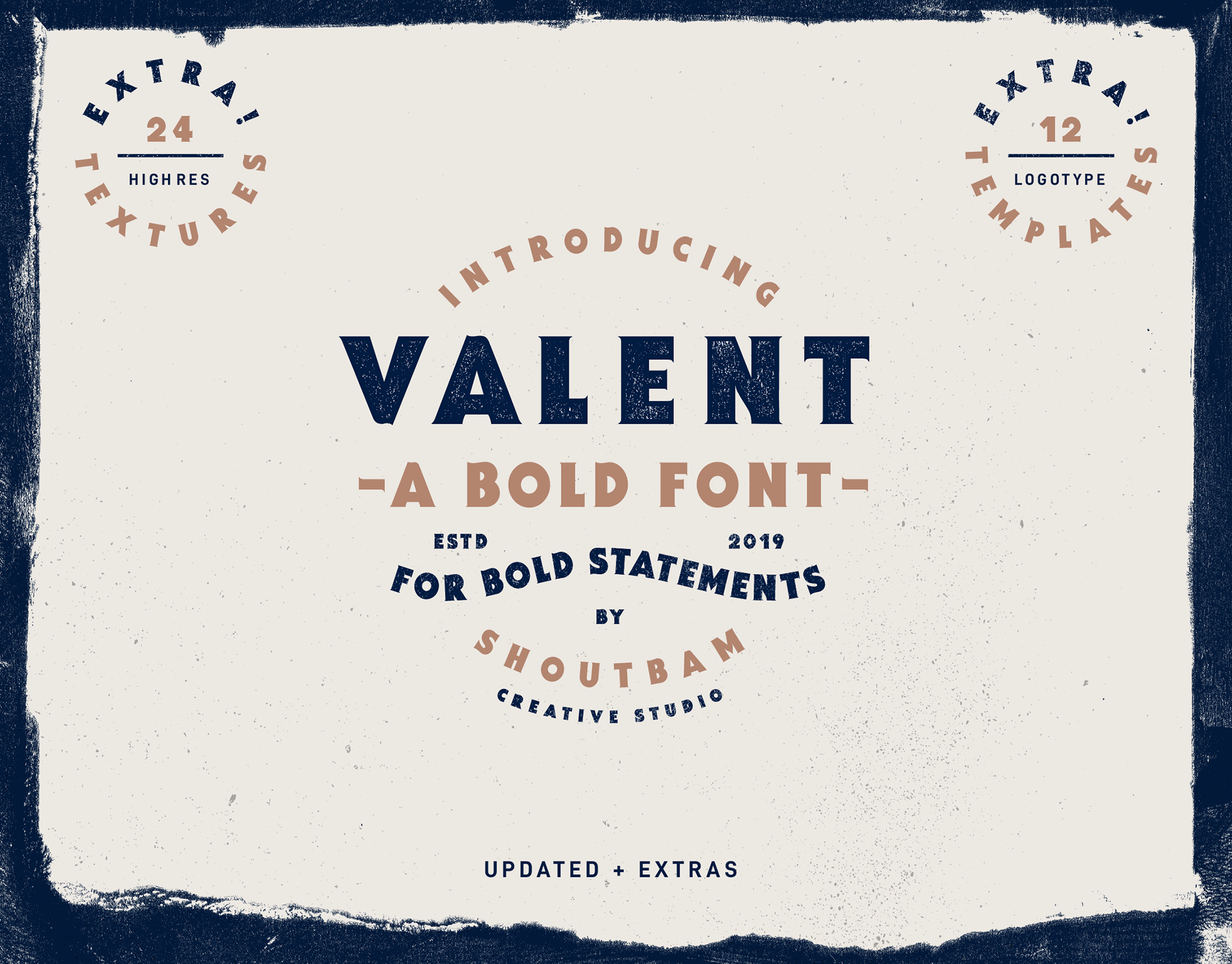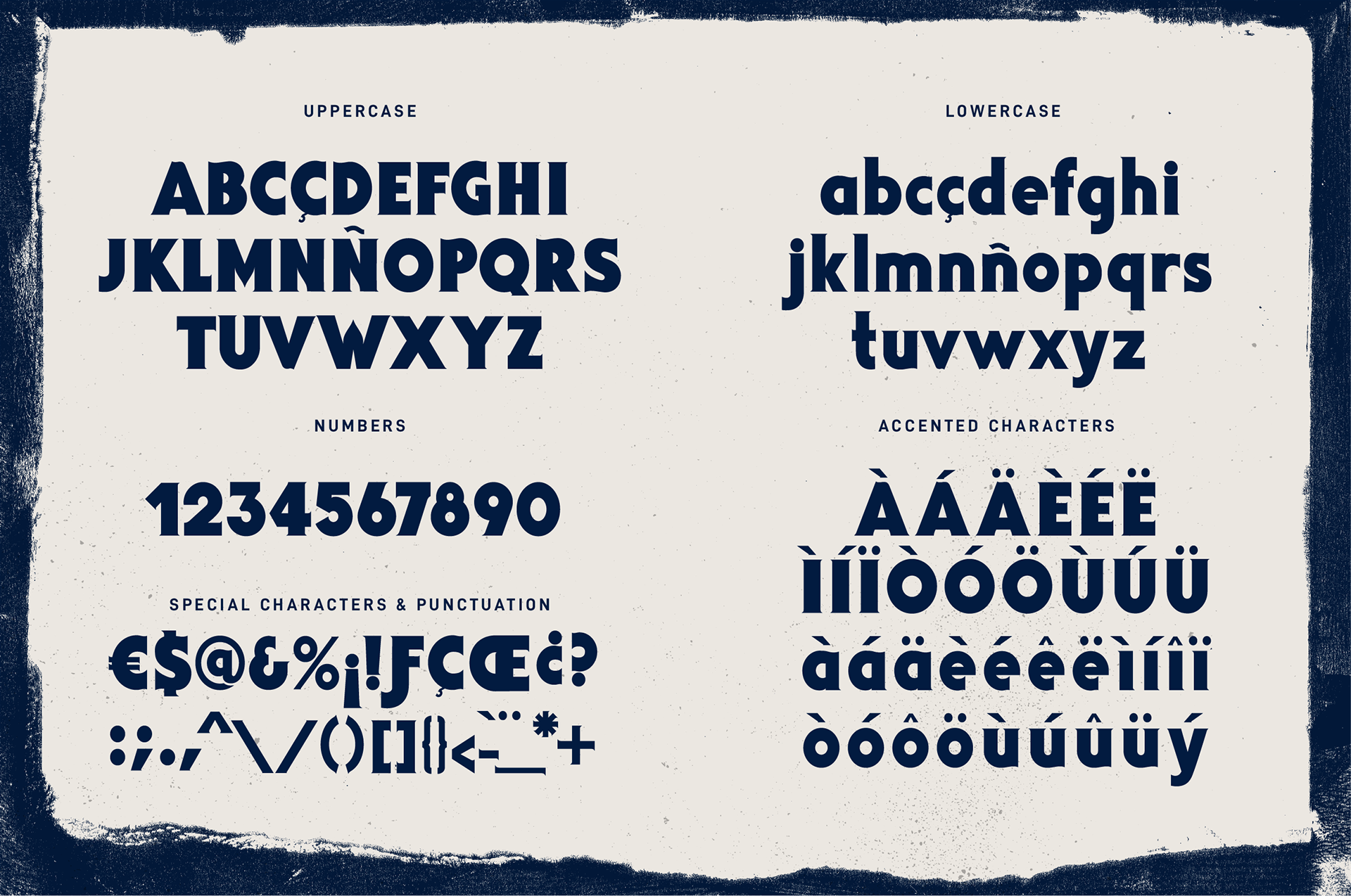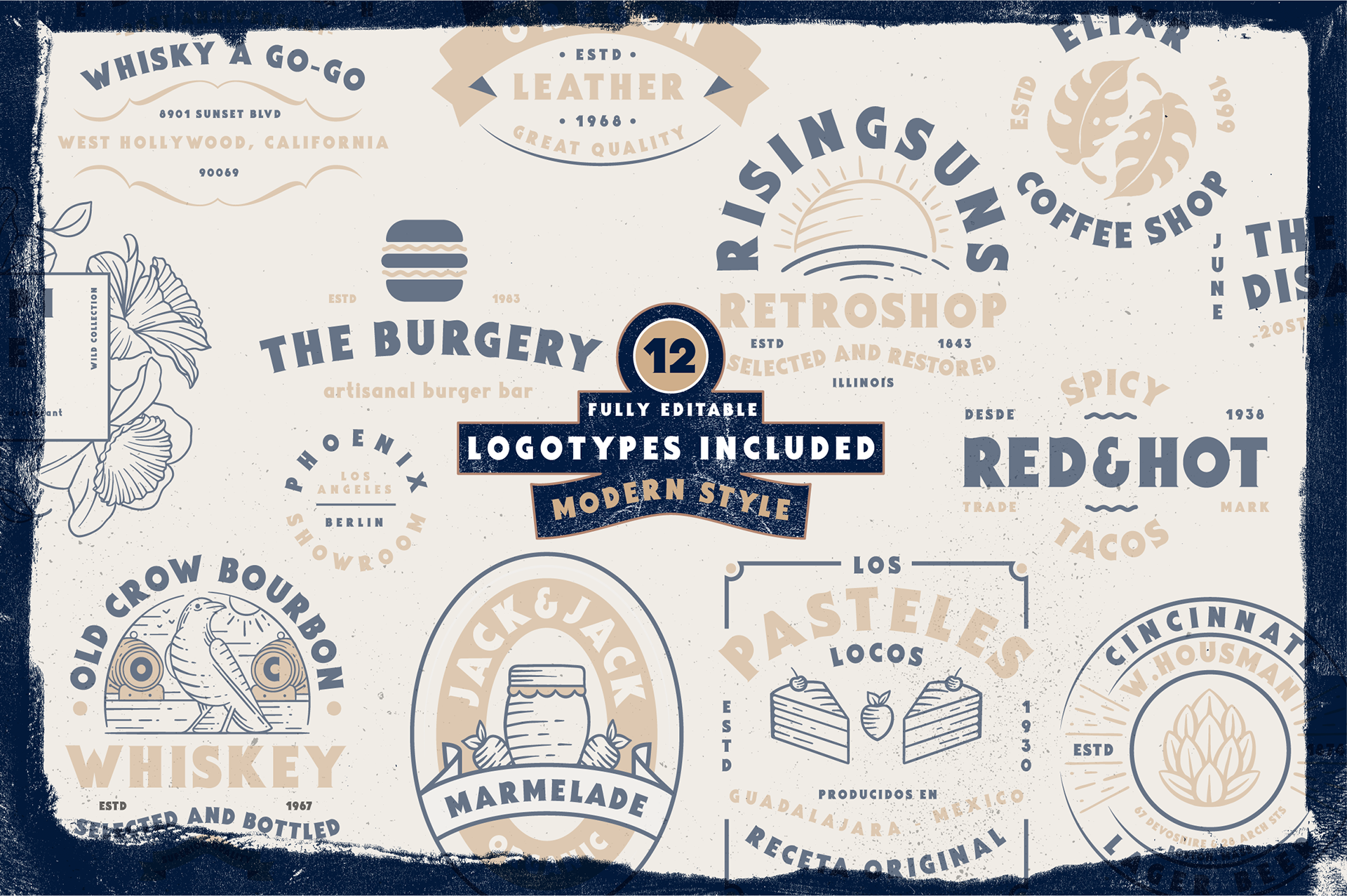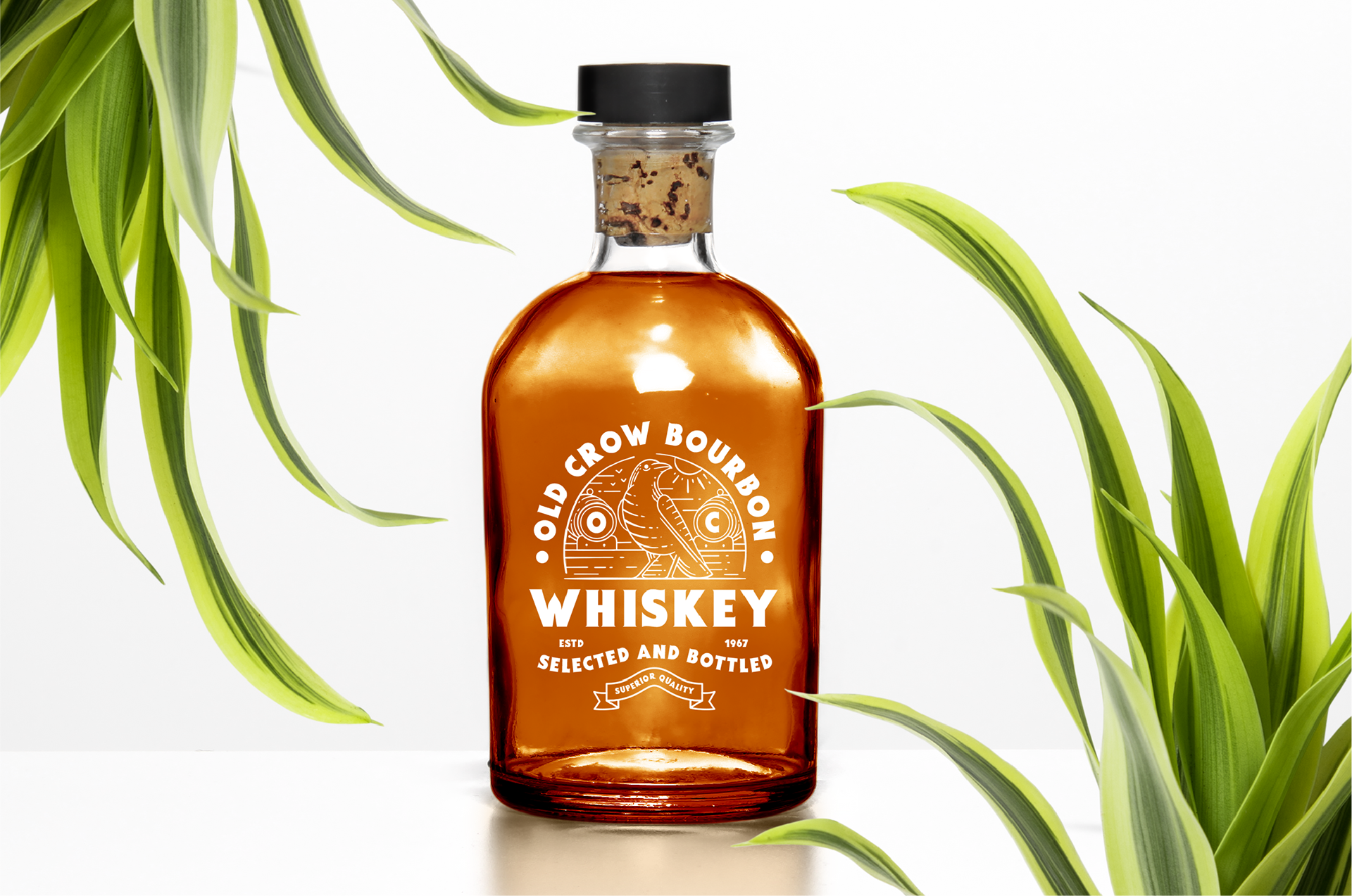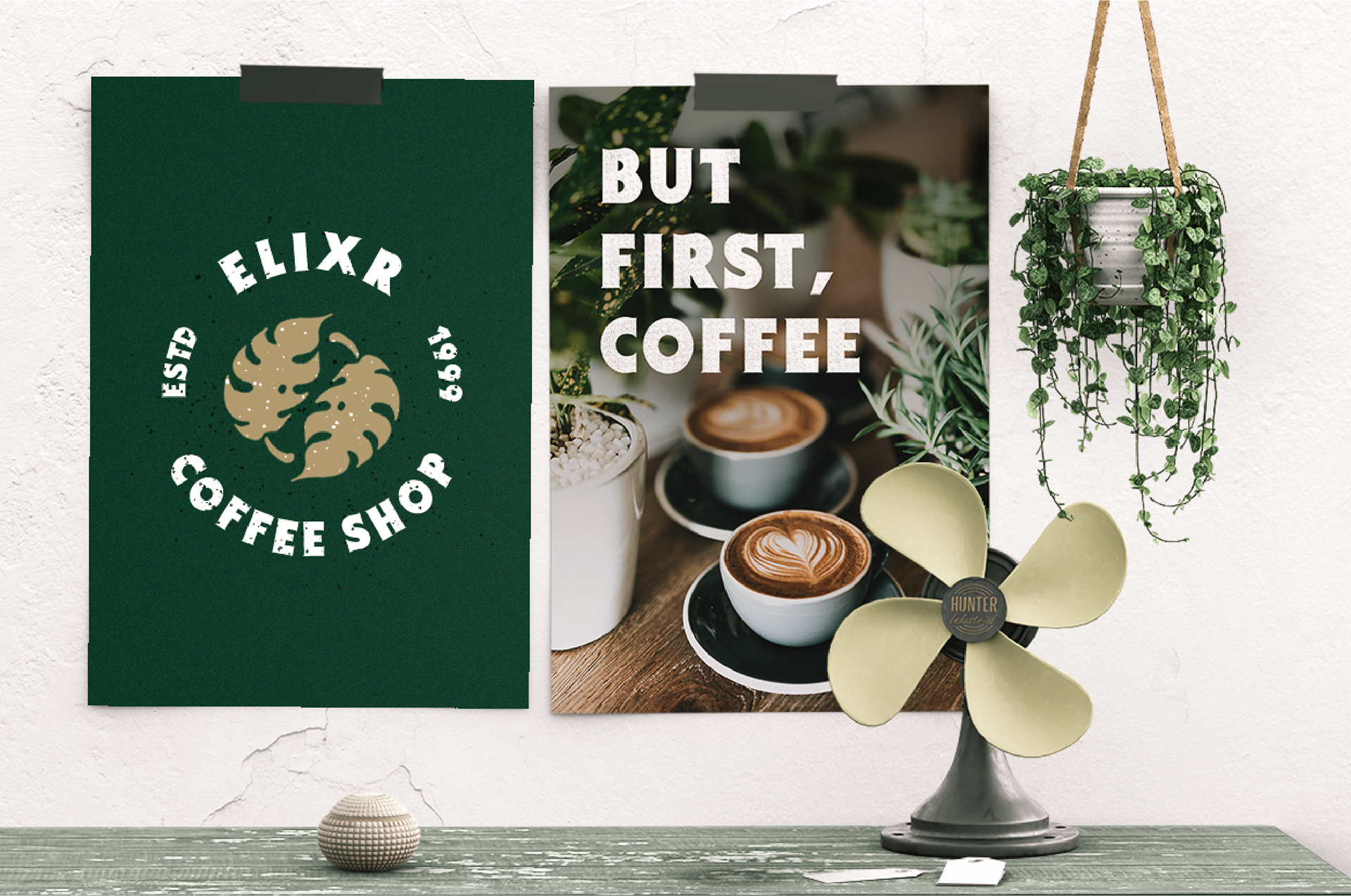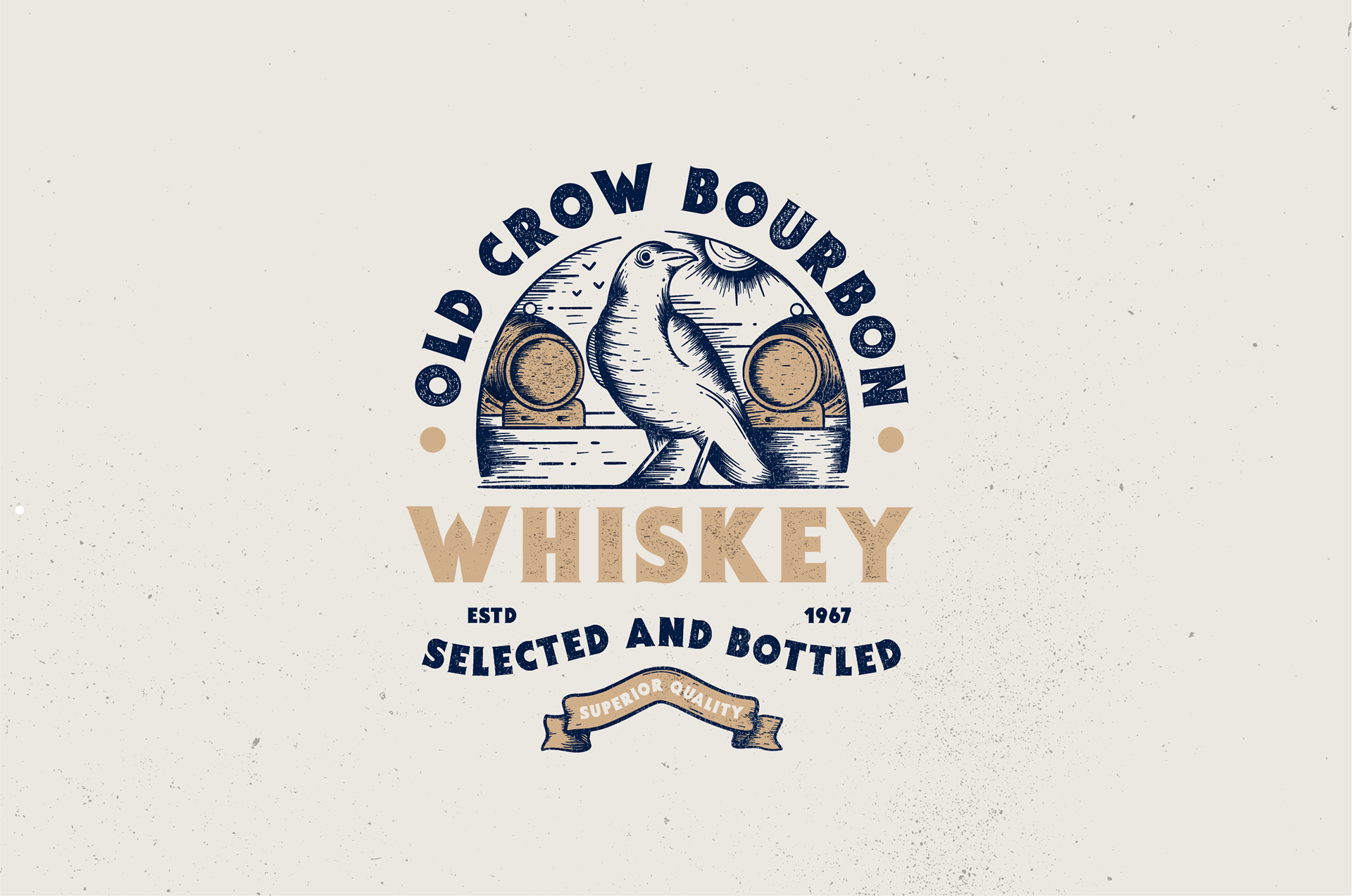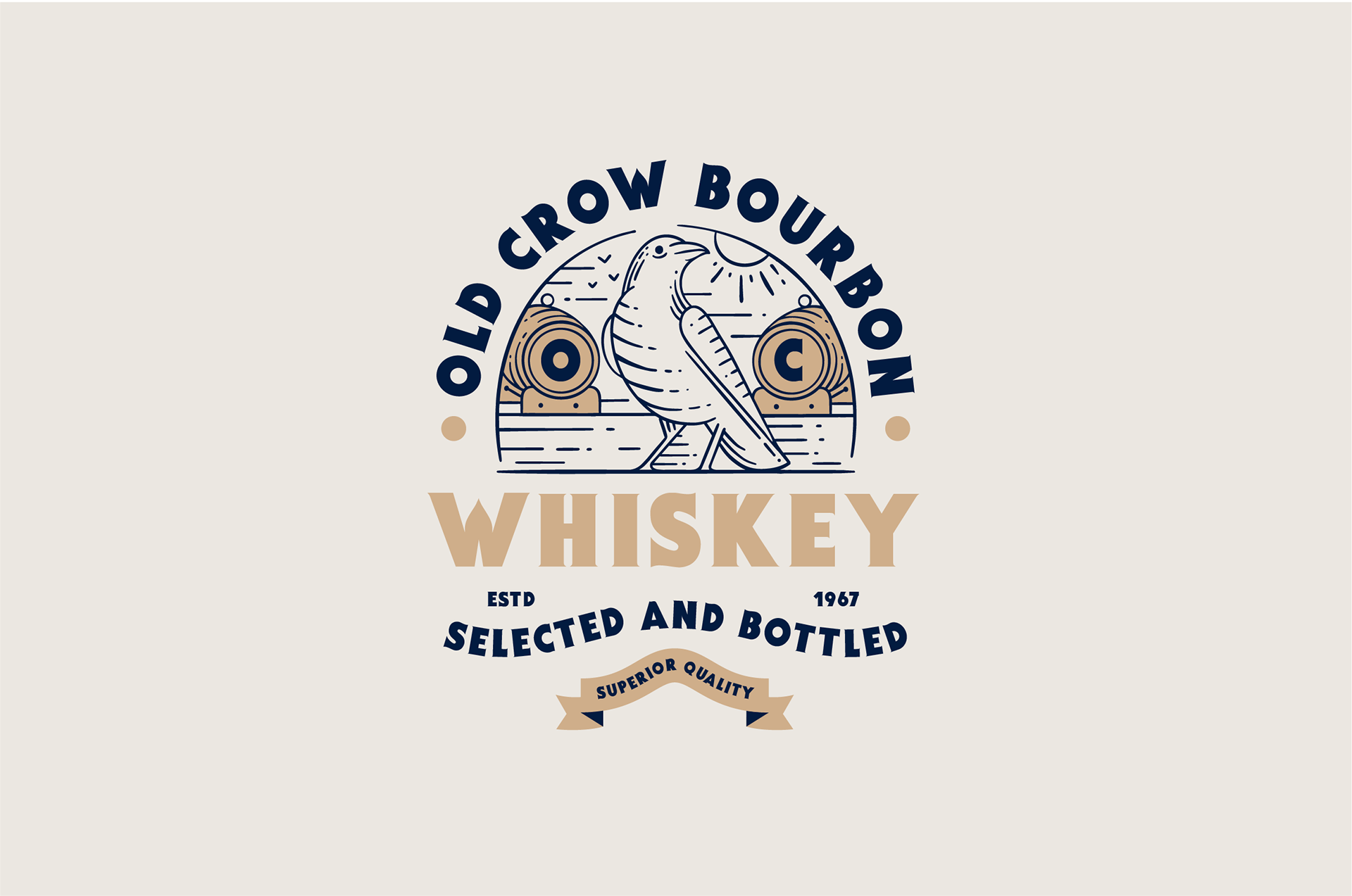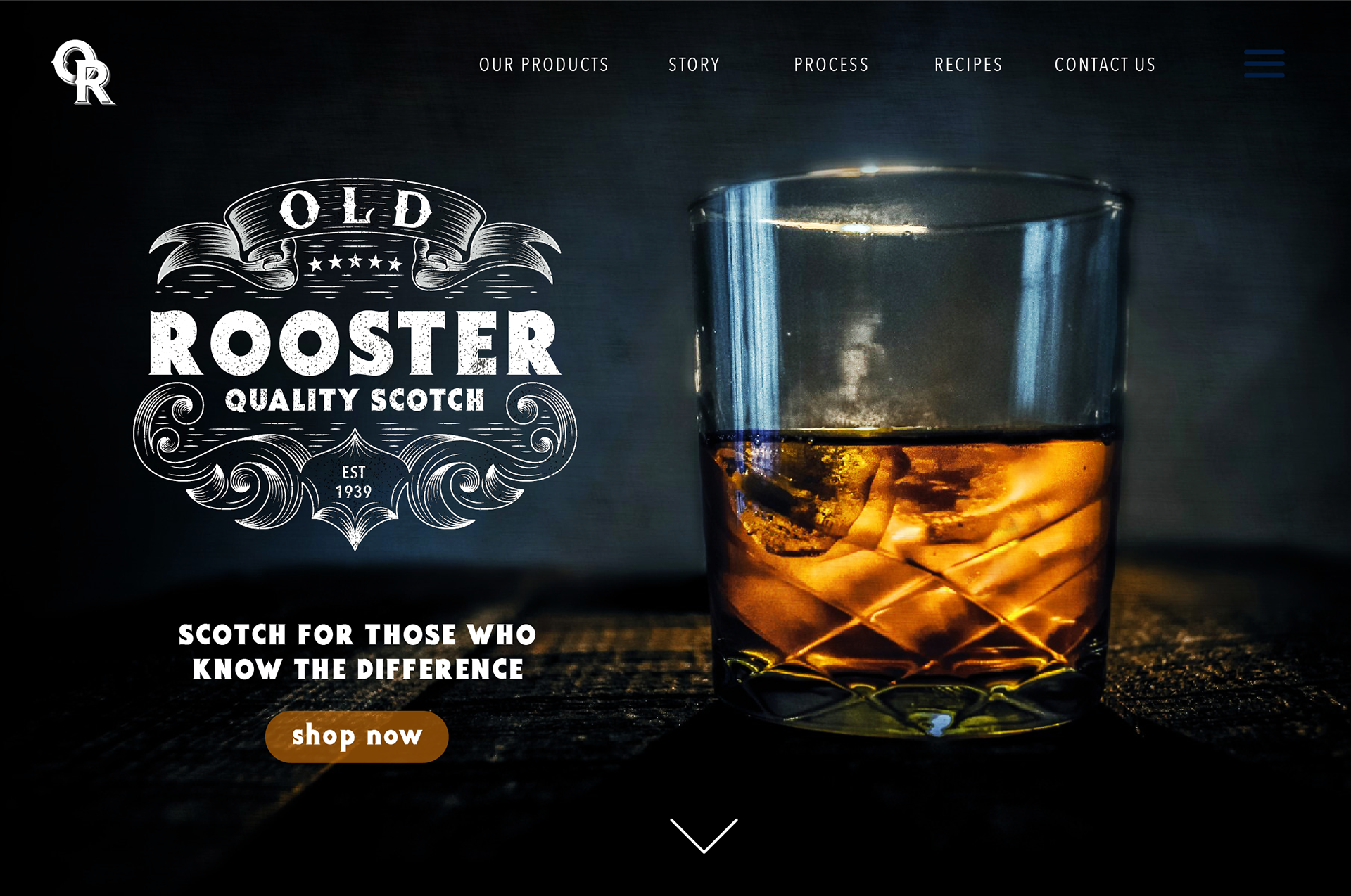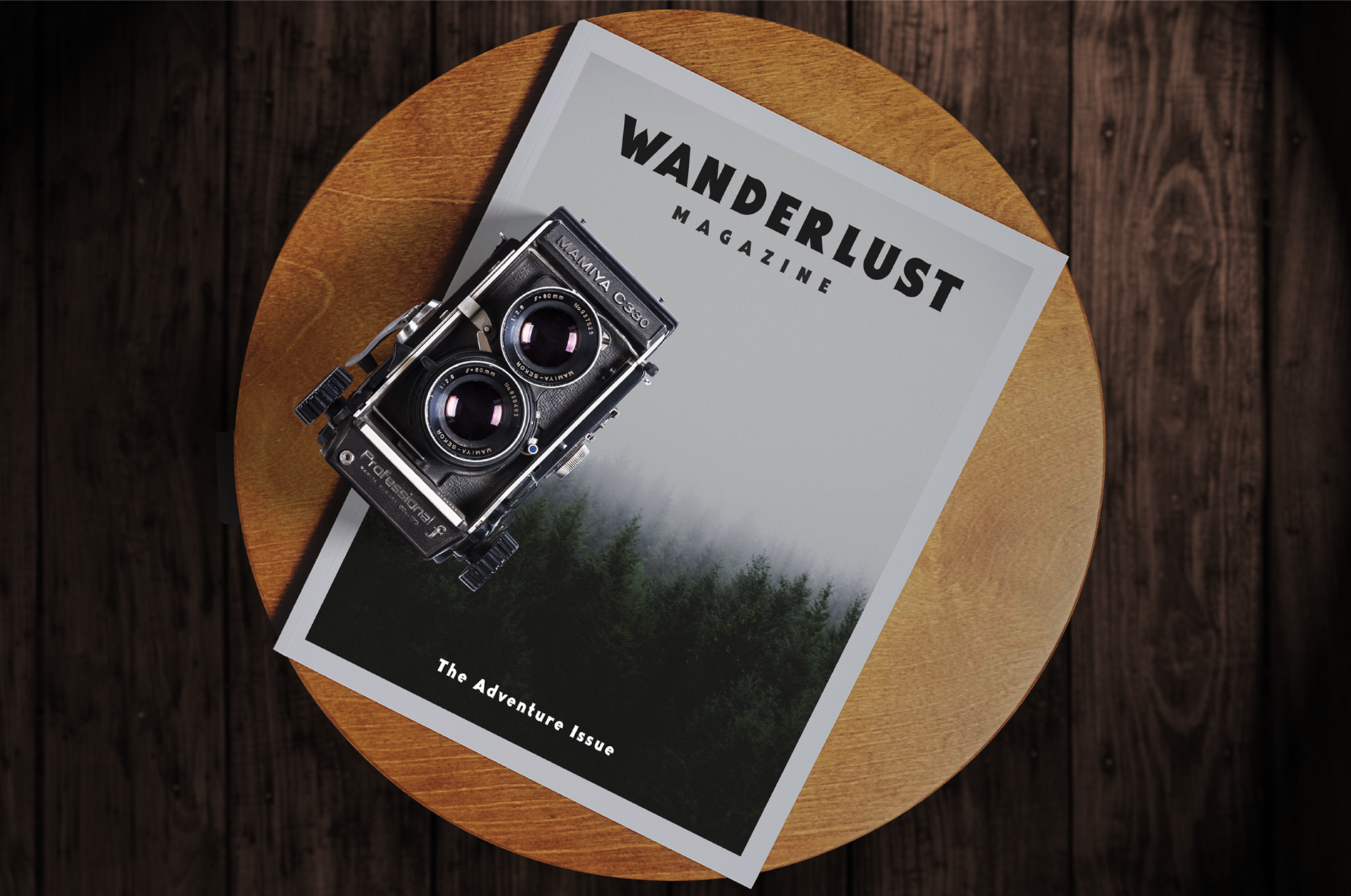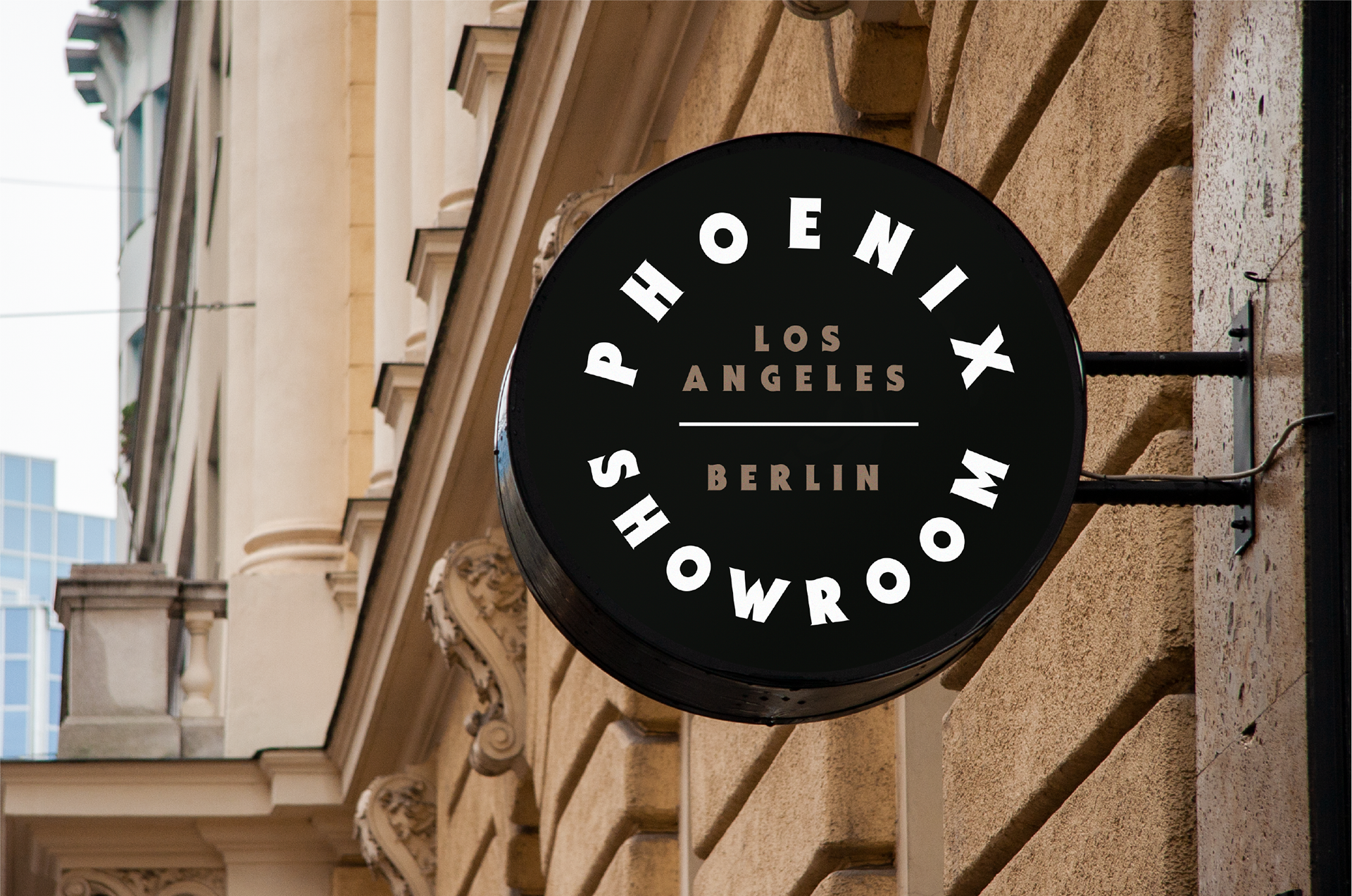
Introducing Valent - Logotype Bundle
Say hello to Valent! A bold font for bold statements! With its thick body and charming serifs, Valent is perfect for vintage inspired retro logotypes and designs (12 logotype templates included!). Also, Valent looks just great on branding projects, packaging and as big magazine headlines.
Valent was created with great care and consideration for variety and usability and it also includes full set of uppercase and lowercase letters, multilingual symbols, numerals and punctuation.